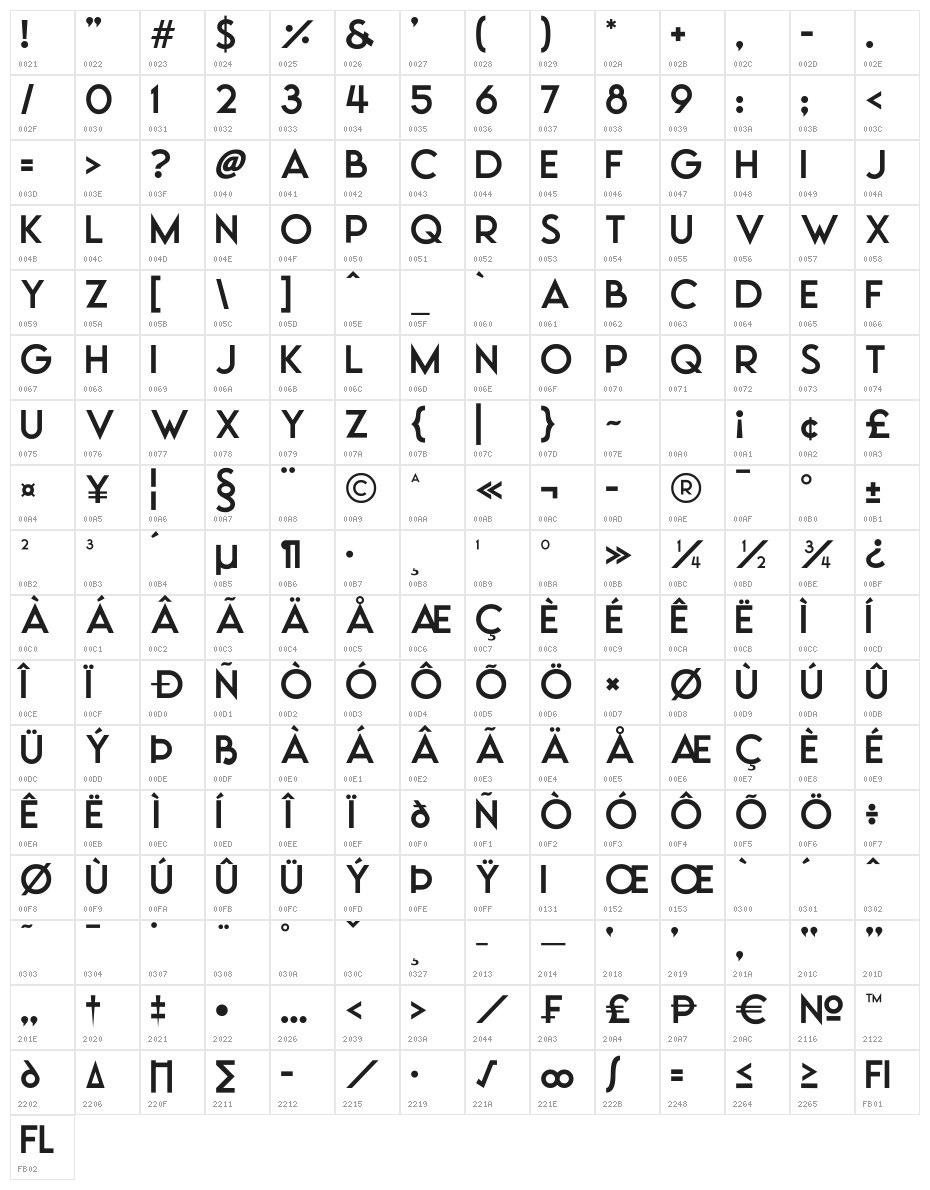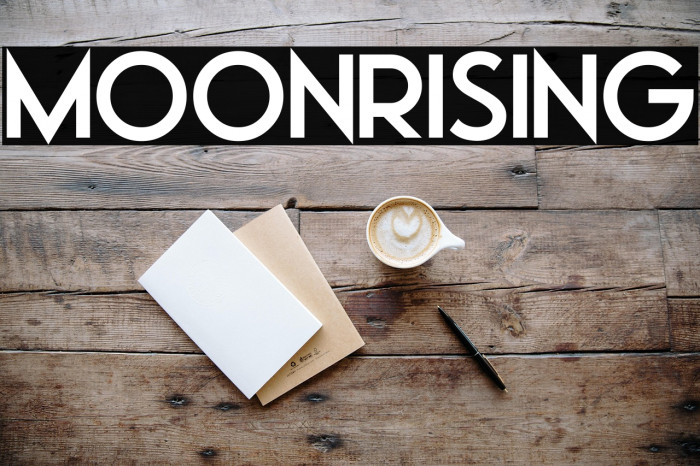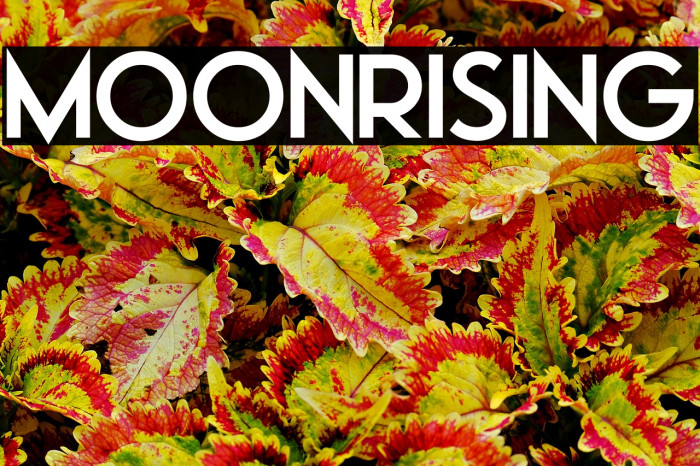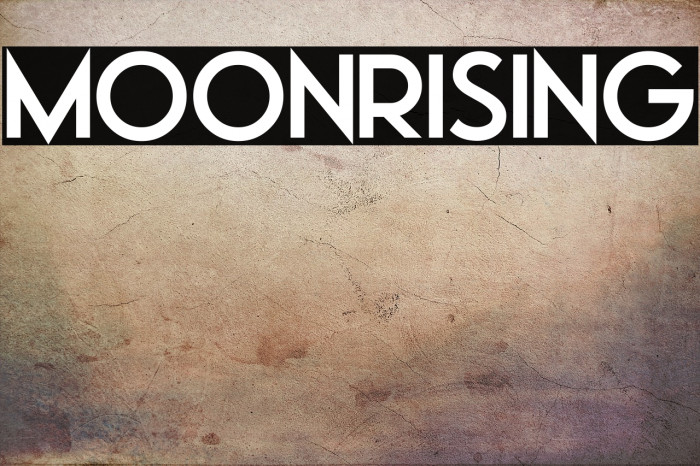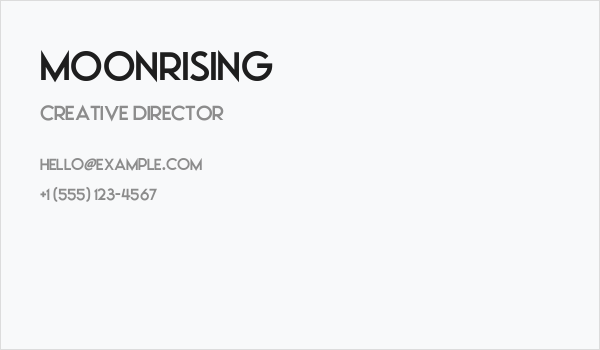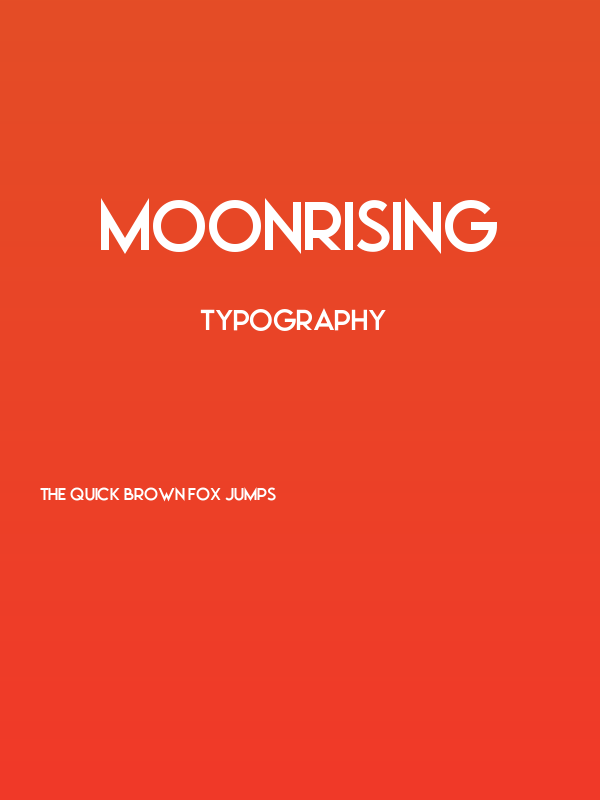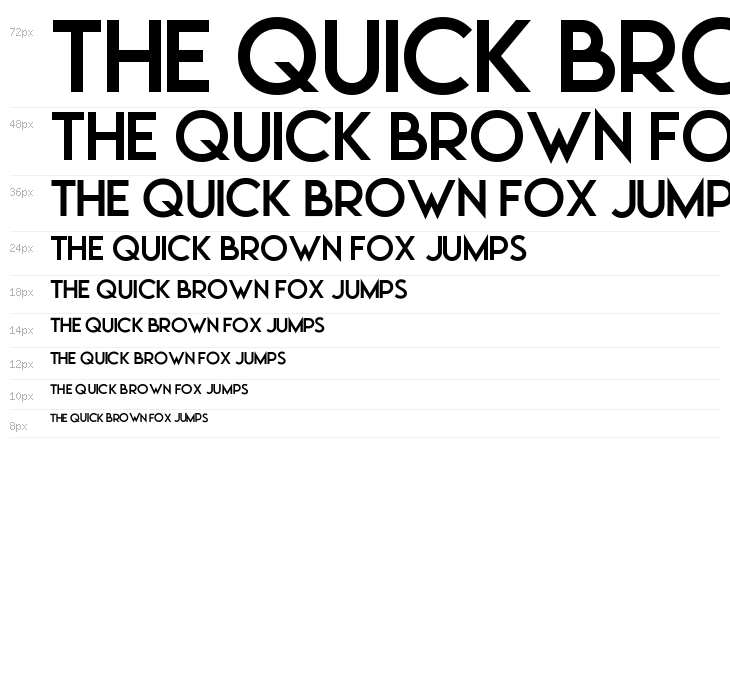
Moonrising Font
Moonrising Description
This font features a bold and geometric sans-serif style, characterized by clean lines and a modern aesthetic. The uppercase and lowercase letters maintain a consistent structure, with a focus on symmetry and balance. The numerals are clear and easily distinguishable, complementing the overall design. The special characters are crafted with precision, ensuring readability and visual appeal. This font's simplicity and boldness make it versatile for various design applications.